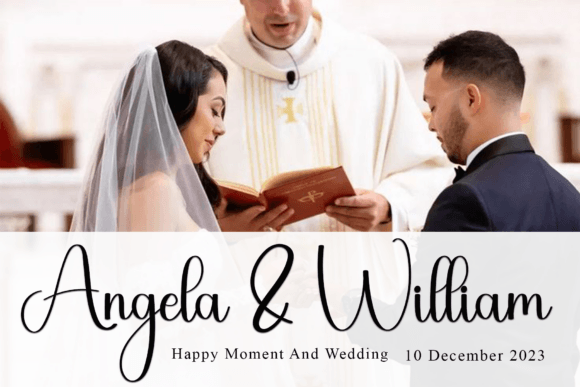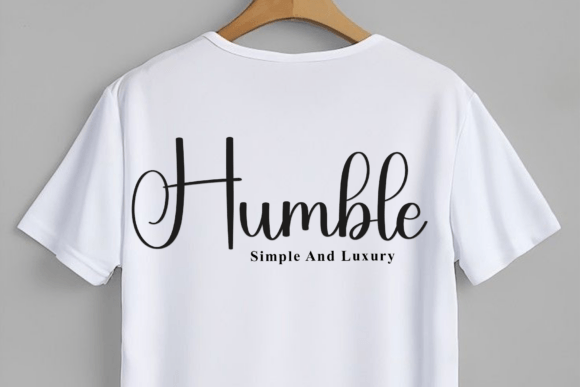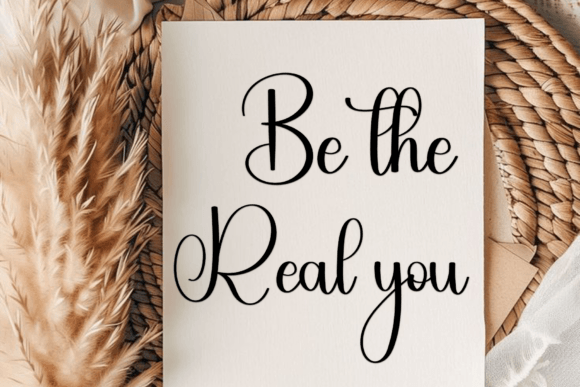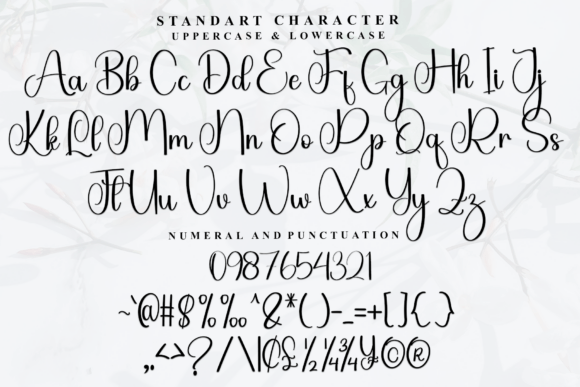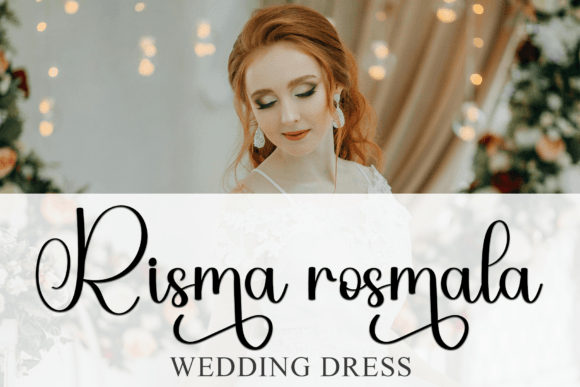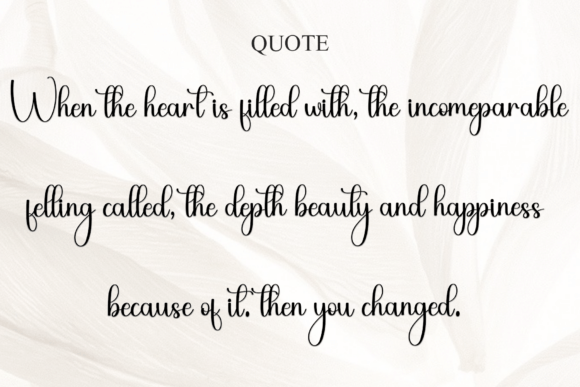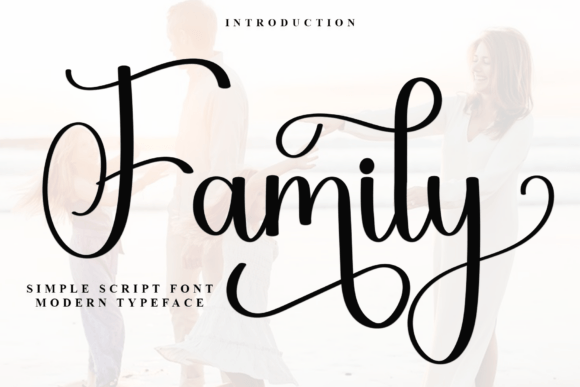
Introducing Family Font: The Perfect Addition to Your Design Projects
Are you tired of using the same old fonts in your design projects? Look no further than Family Font, a beautiful and eye-catching typeface that is sure to elevate your creative works. With its soft, unique touch and distinctive strokes, Family Font is the perfect addition to any design project, craft, or artistic endeavor.
What Makes Family Font Special?
Family Font is designed with a special character that sets it apart from other fonts. Its soft and unique touch gives it a distinctive feel that is both meaningful and versatile. This font is perfect for designers and crafters who want to add a personal touch to their work. With Family Font, you can create stunning designs that are sure to appeal to a wide range of audiences.
Key Features of Family Font
• Unique and Eye-Catching Design: Family Font has a distinctive design that is sure to grab attention. Its soft and unique touch makes it perfect for creative projects.
• Versatile and Meaningful: This font is designed to be versatile and meaningful, making it perfect for a wide range of design projects, crafts, and artistic endeavors.
• Various Characters: Family Font comes with a range of characters, making it perfect for designers and crafters who want to add a personal touch to their work.
Why Choose Family Font?
There are many reasons why Family Font is the perfect choice for designers and crafters. Here are just a few:
• Perfect for Design Projects: Family Font is perfect for design projects, including brochures, posters, and business cards.
• Ideal for Crafts: This font is also ideal for crafts, including scrapbooking, card making, and other paper crafts.
• Suitable for Artistic Endeavors: Family Font is suitable for artistic endeavors, including painting, drawing, and other forms of visual art.
• Enhances Designs: This font is designed to enhance your designs, making them appealing to a wide range of audiences.
Font Name Family Font
Benefits of Using Family Font
Here are just a few benefits of using Family Font:
• Save Time: With Family Font, you can save time and effort in creating stunning designs.
• Enhance Your Designs: This font is designed to enhance your designs, making them appealing to a wide range of audiences.
• Stand Out from the Crowd: Family Font is a unique and eye-catching font that will help you stand out from the crowd.
• Perfect for Beginners and Professionals: This font is perfect for both beginners and professionals, making it a great addition to any design project.